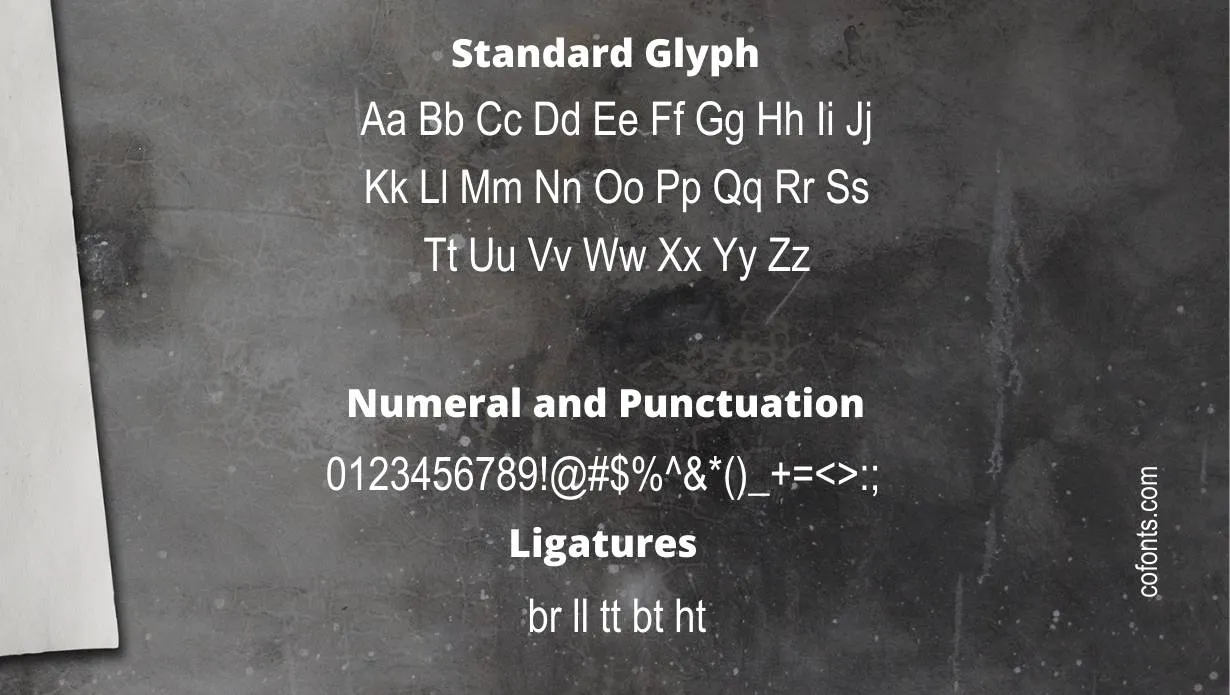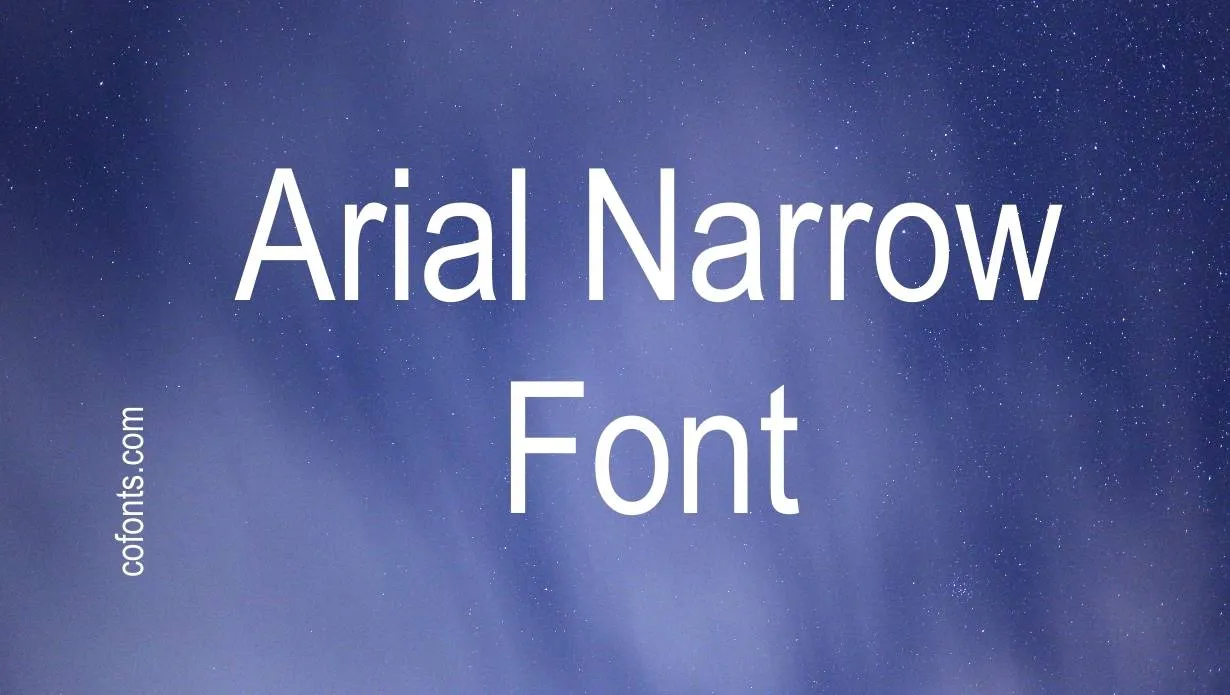
About Arial Narrow Font Free Download
Arial Narrow is a condensed version of the ubiquitous Arial typeface, designed to fit more characters into a limited horizontal space. It maintains the clean, neutral, and highly legible characteristics of its parent font but with a noticeably narrower set width. This makes it exceptionally useful for headlines, captions, dense tables, and multi-column layouts where saving space is crucial. While its proportions are adjusted, it retains full stylistic harmony with the standard Arial family, allowing for seamless integration in documents. It is a practical tool for designers needing efficiency without sacrificing readability.